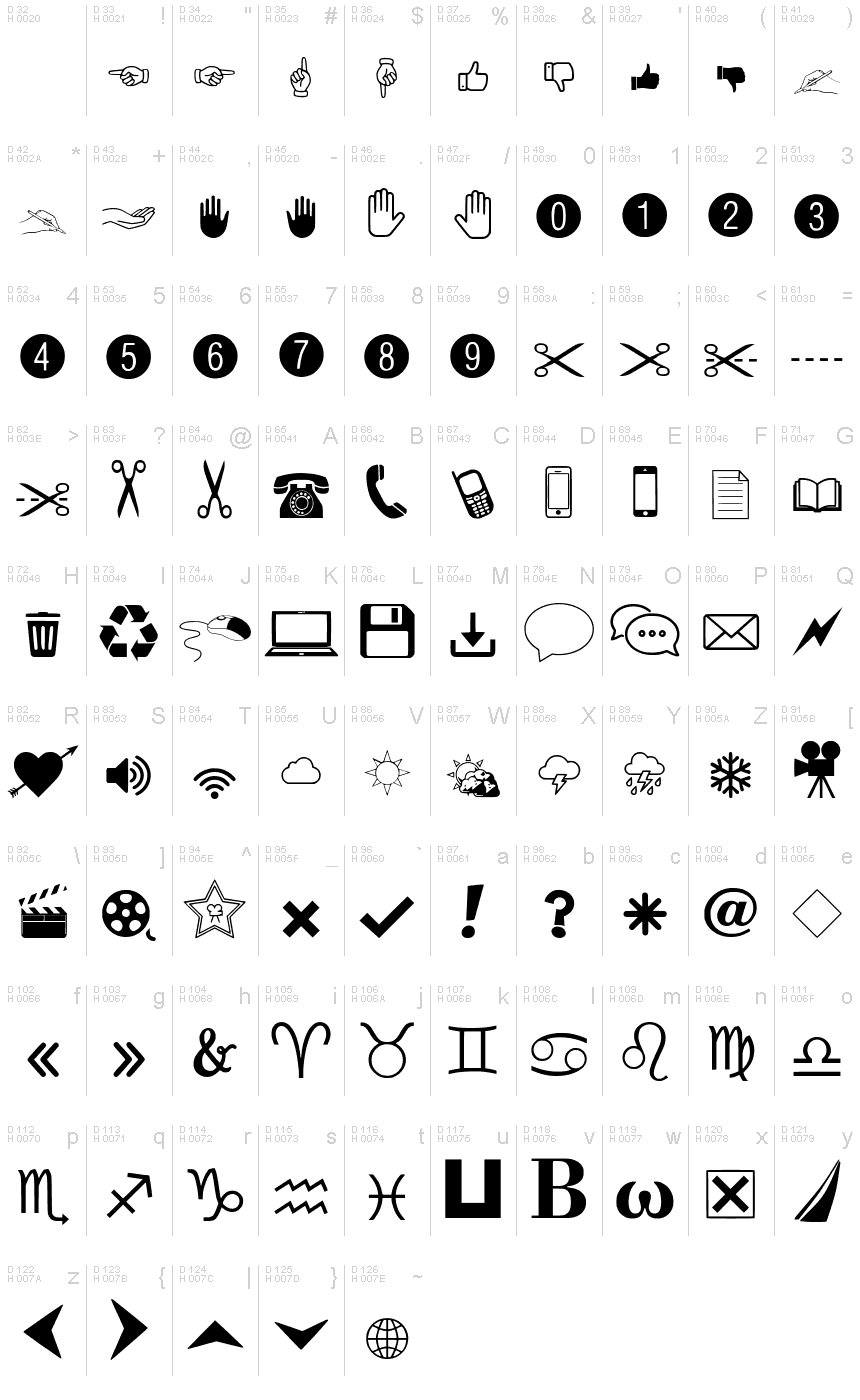
Markbats 3 Regular
Markbats 3 is the third installment of Markbats. It was released on May 28, 2020. It was created as a modernized version of Wingdings, and intended to rival Wingdings in the use of dingbats on software. It has the same symbol syntax, but includes more modern technology, such as cell phones, modern computer symbols, as well as symbols brought back from Wingdings such as hand symbols, zodiac signs, and stars. Of all Markbats fonts, Markbats 3 has the most influence from Wingdings.